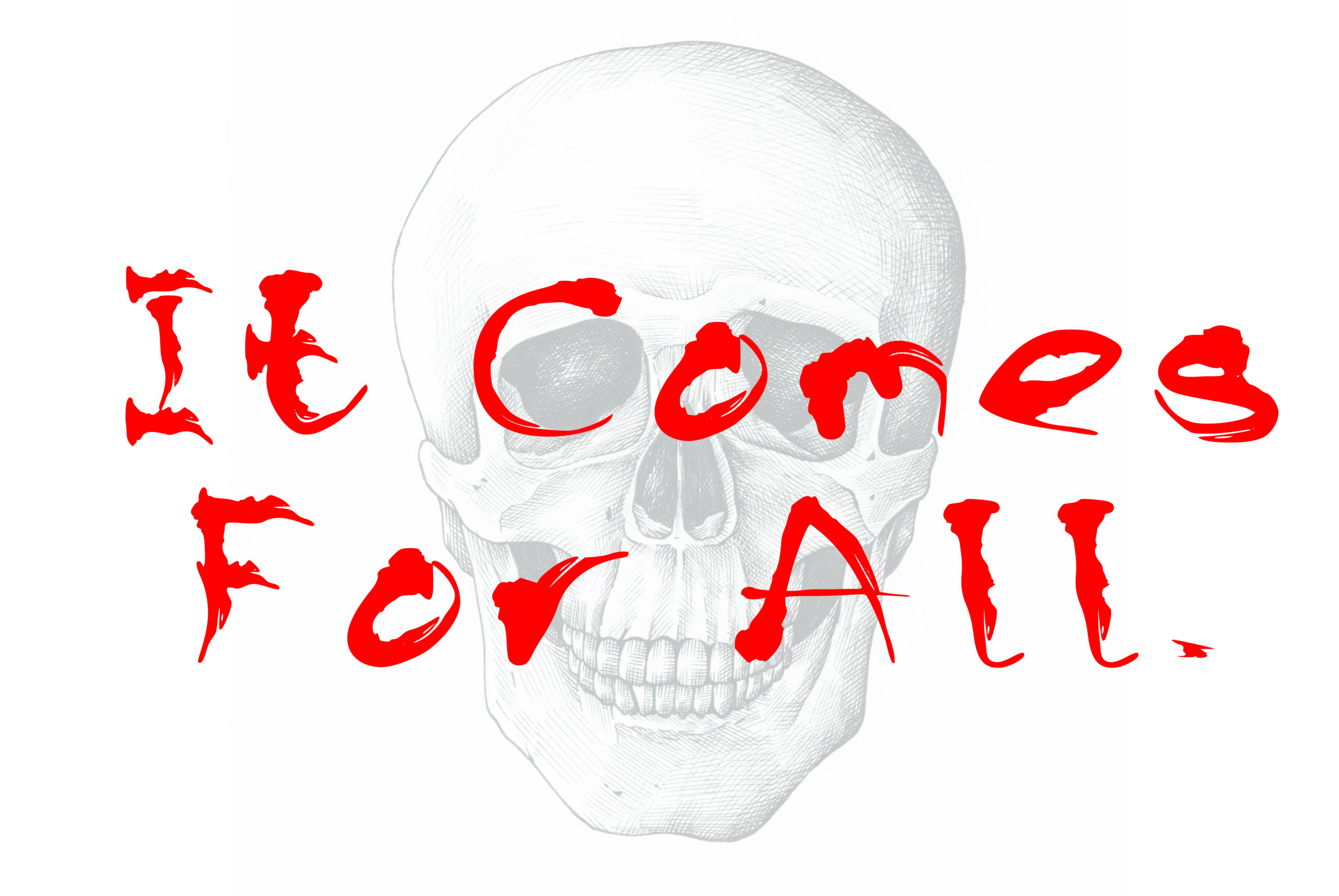
Creepy Font
About Creepy Font
“This font will be a total hit at Halloween! With massive influences from Michael Jacksons ‘Thriller’, we wanted to heighten the creepy factor to the max. Use for all your invites, posters and designs and spooky needs. The font is complete with upper, lower, numbers and symbols so there is no escape from main a design worth screaming about!”